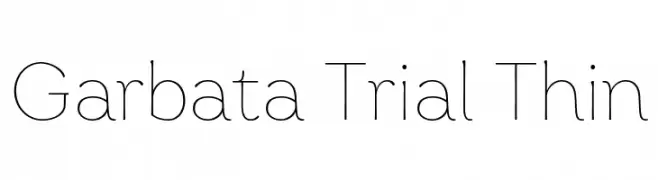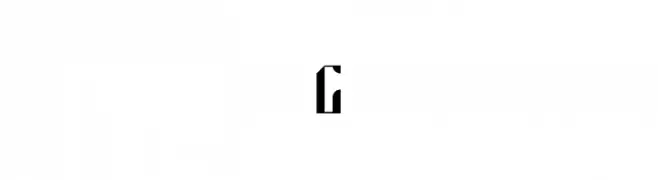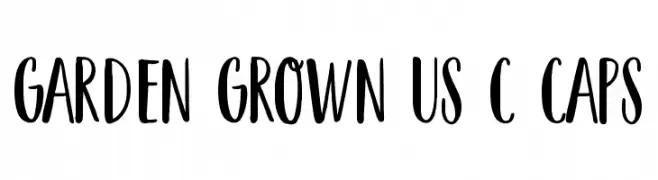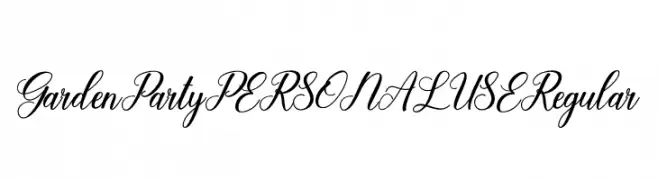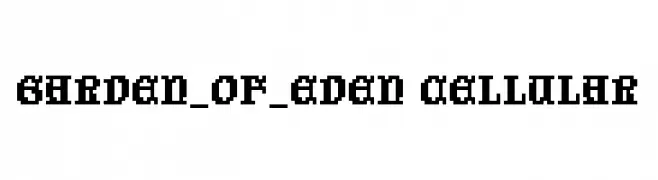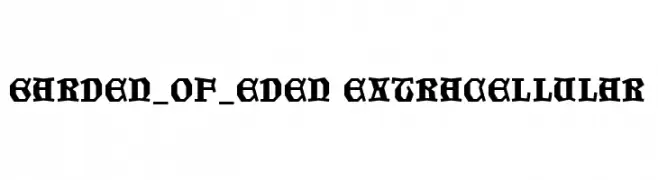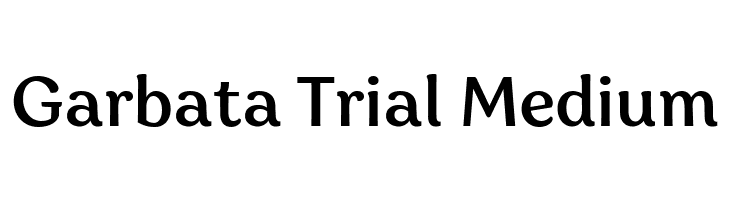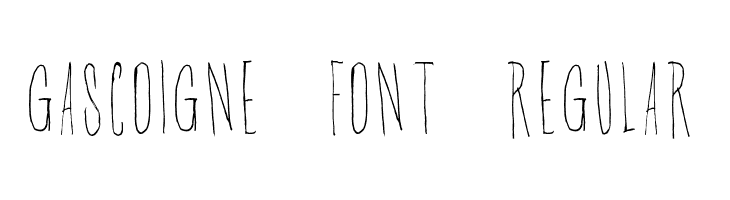
A modern, elegant font with clean lines and balanced proportions.
A modern serif font with elegant curves and balanced proportions.
A sleek, modern font with thin, clean lines and a minimalist design.
A bold, geometric font with sharp angles and high contrast.
A playful, hand-drawn font with a whimsical and organic style.
An elegant, flowing script font with ornate uppercase and cohesive lowercase letters.
A bold, pixelated font with a retro digital aesthetic.
A bold, Gothic-inspired font with sharp, angular lines and a decorative style.
A decorative and artistic font with intricate, ornate designs.
A playful, handwritten script font with dynamic loops and smooth curves.